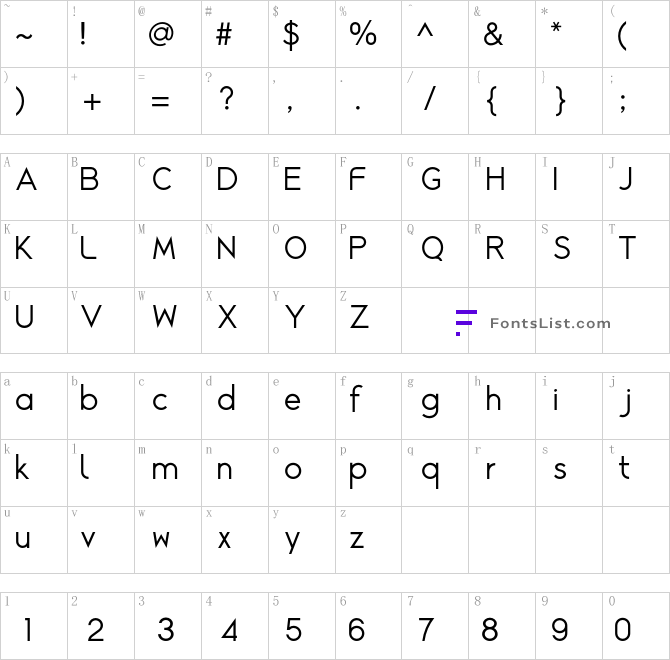
- Font Name:Alcefun
Alcefun.otf is a very beautiful artistic font, Alcefun.otf is widely used in the design and printing of various books and pictures,Alcefun.otf has a strong visual impact,Alcefun.otf is a commonly used font in newspapers, magazines and books, and is used in posters, e-commerce Poster design, store design, logo design, font design and other fields.Alcefun.